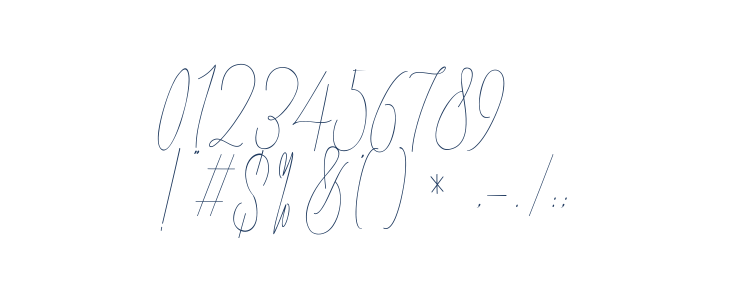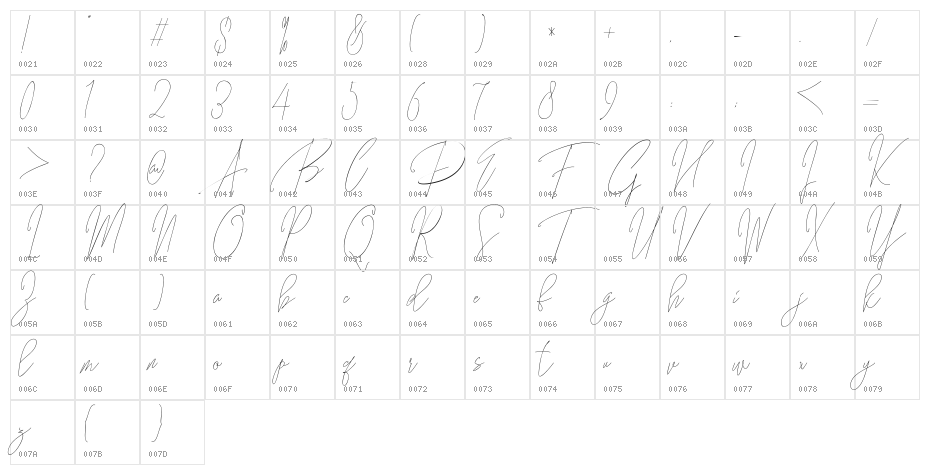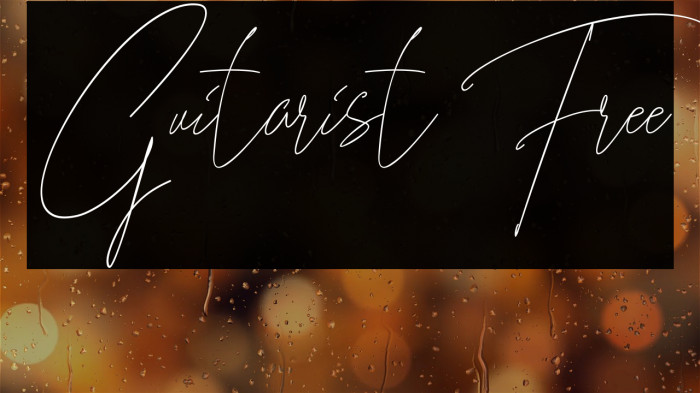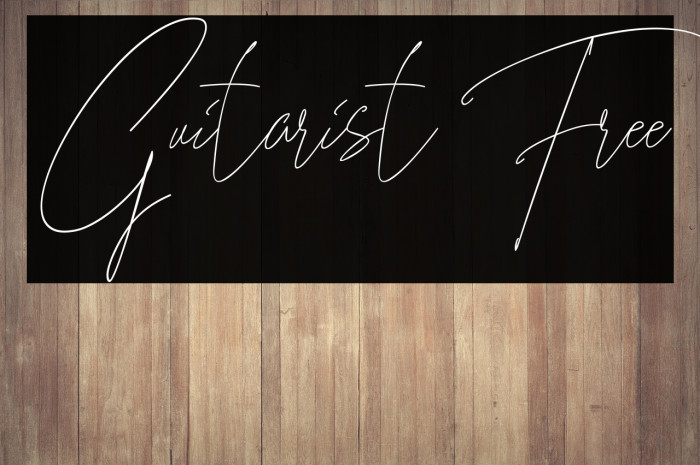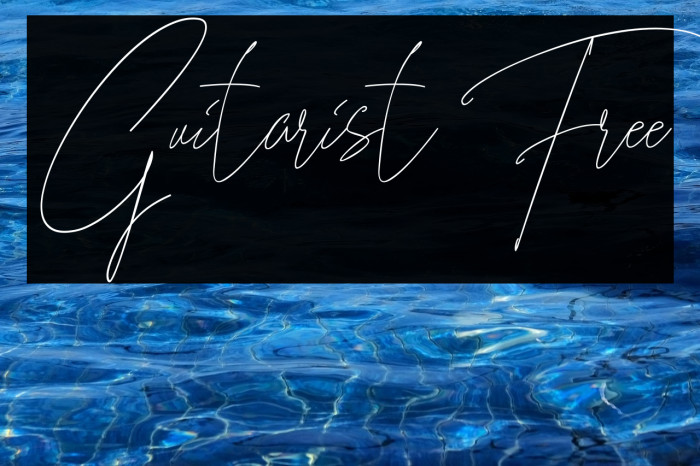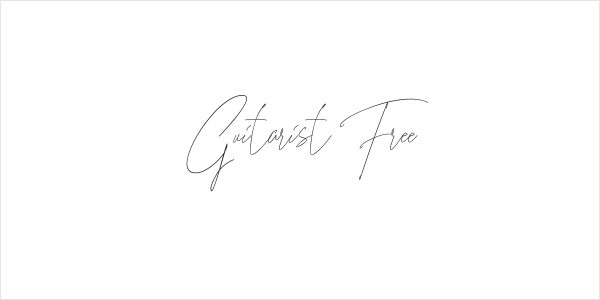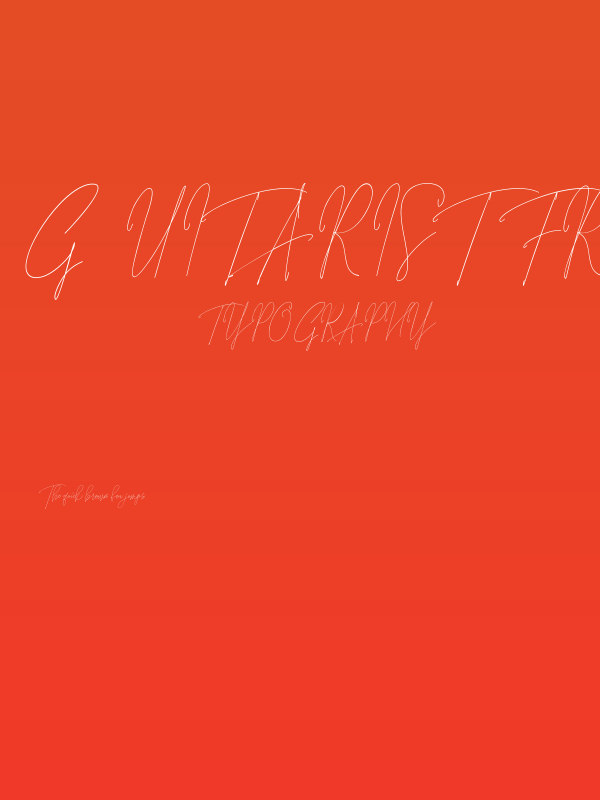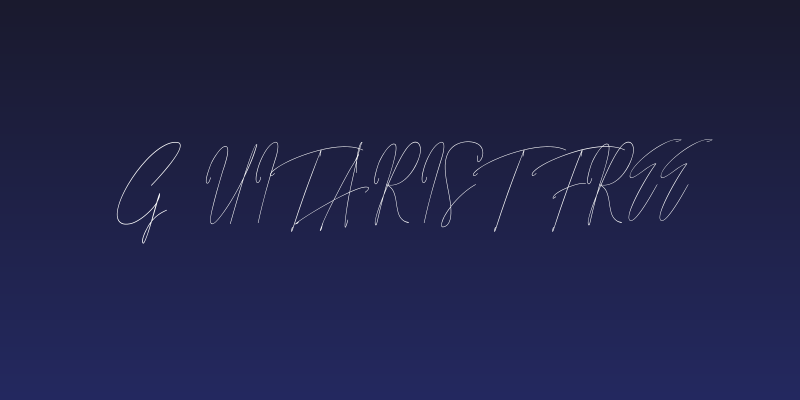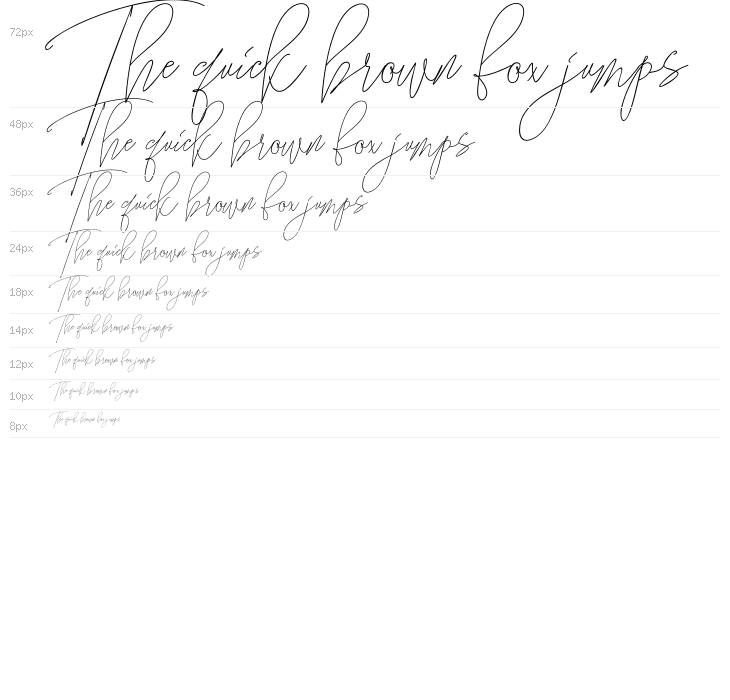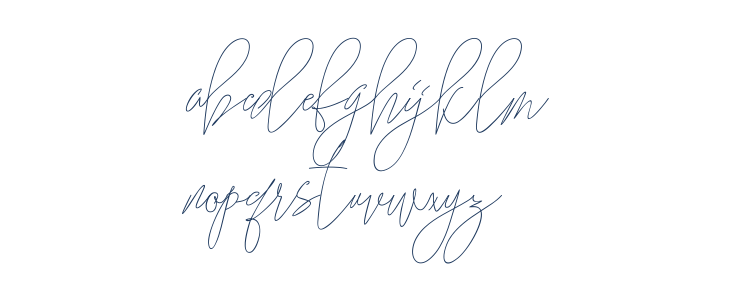
Guitarist Free Font
Guitarist Free Description
This font exudes elegance and sophistication with its flowing, cursive script style. The letters are interconnected, creating a seamless and fluid appearance. The strokes are thin and delicate, giving it a light and airy feel. The uppercase letters are tall and graceful, while the lowercase letters maintain a consistent flow with gentle curves and loops. The numerals and special characters are designed to match the overall aesthetic, ensuring a cohesive look. This font is perfect for projects that require a touch of class and refinement.
Overall StyleElegant
Use CaseLogos, Invitations, Branding
Proposed ProjectsIdeal for wedding invitations, elegant branding, personal stationery, and high-end product packaging.